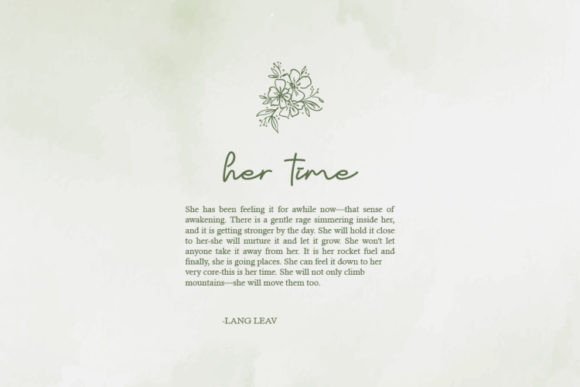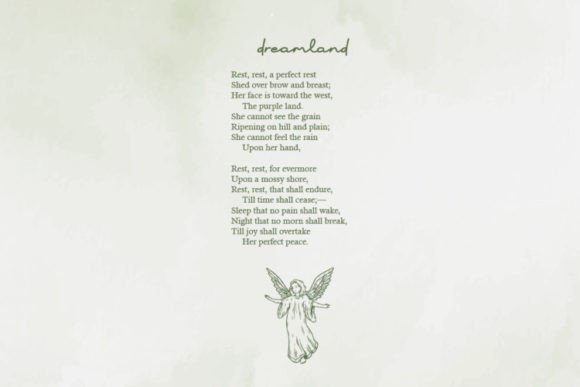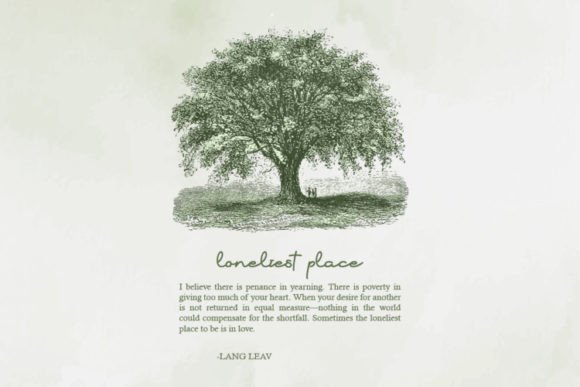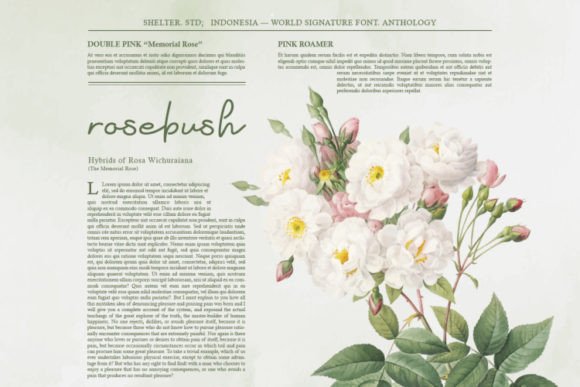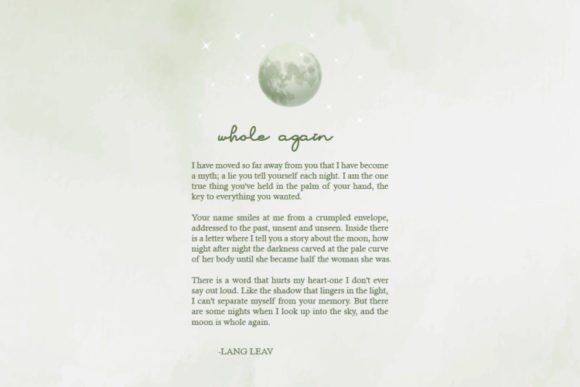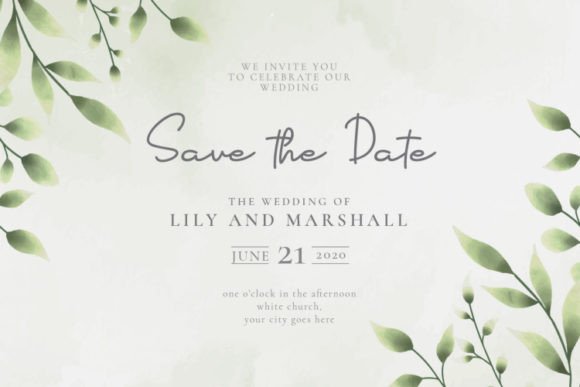
The Elegance of Anthology Font: A Designer’s Delight
A Closer Look: What I Love About Anthology Font
Anthology Font is a beautiful, handwritten font that features sweet and delicate characters. Here are some things that I absolutely love about it:
- ✨ Elegant and dainty design that’s perfect for a wide range of crafty ideas
- 💫 Features a wide range of OpenType features, including glyphs and stylistic alternates
- 🎨 Versatile and adaptable to different design styles and themes
While Anthology Font is an amazing font, there are a few small quirks and limitations to be aware of:
- 🤔 Some users may find the font a bit too delicate for certain design projects
- ⚠️ Limited support for non-English characters
The Story Behind Anthology Font
Anthology Font was designed by a team of talented typographers who wanted to create a font that would capture the essence of elegance and sophistication. The font was inspired by traditional calligraphy and handwriting, with a modern twist. The designers spent countless hours perfecting the font, making sure that every detail was just right.
| Font Name | Anthology Font |
| What is Anthology Font? | Anthology Font is a beautiful, handwritten font that features sweet and delicate characters. |
| What is Anthology Font used for? | Anthology Font is perfect for a wide range of crafty ideas, from letterheads and titles to stationery. |
| Is Anthology Font easy to read? | Yes, Anthology Font is highly legible, even at small sizes. |